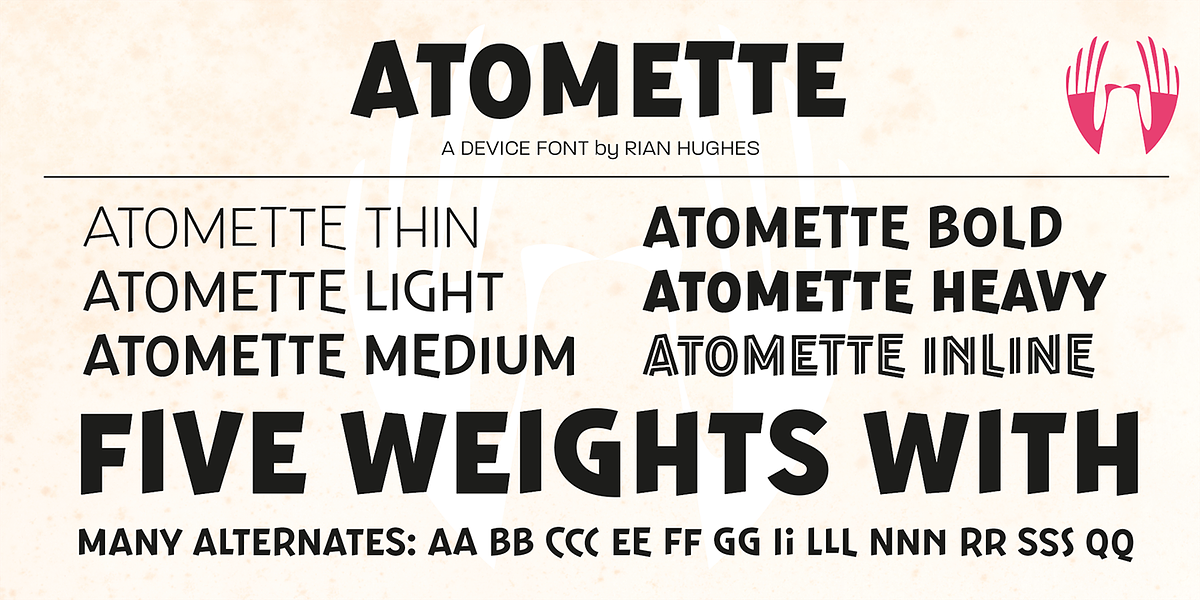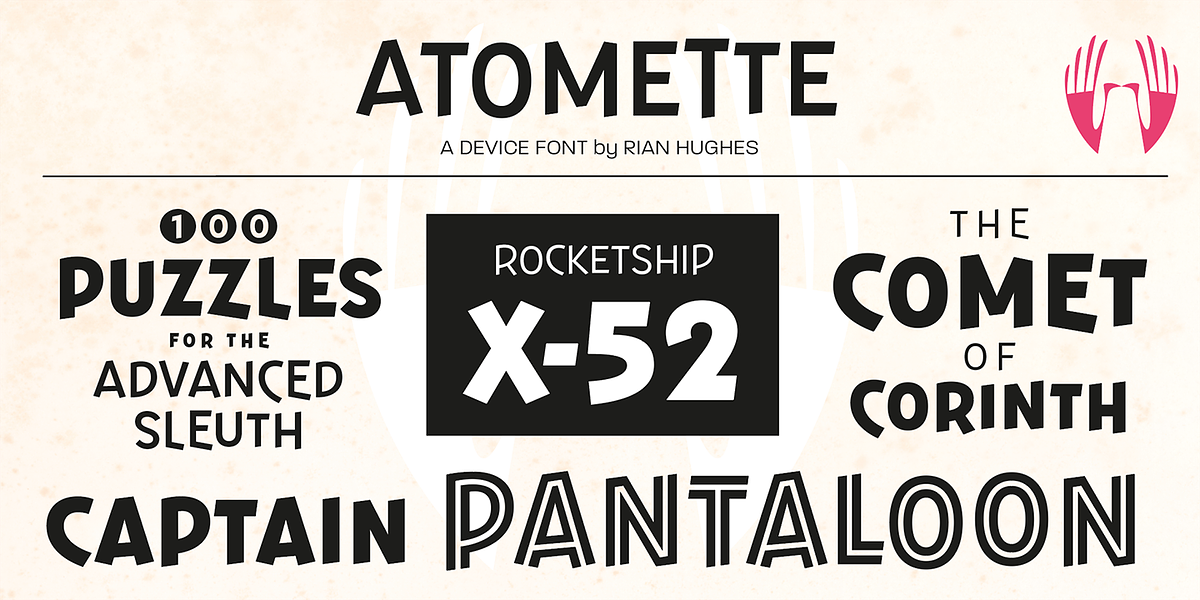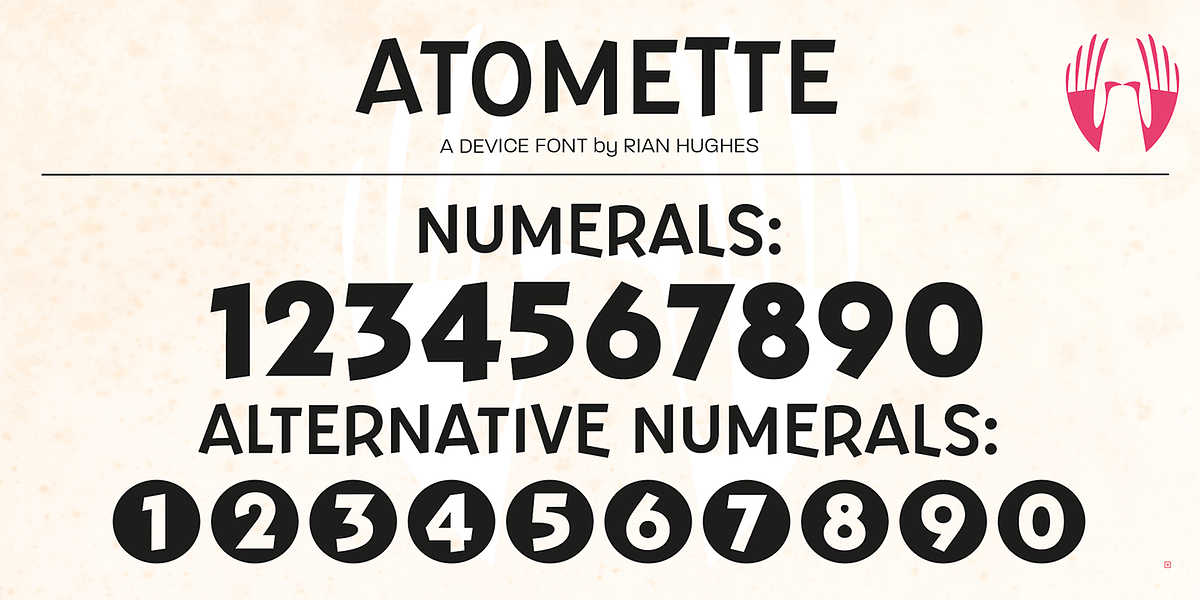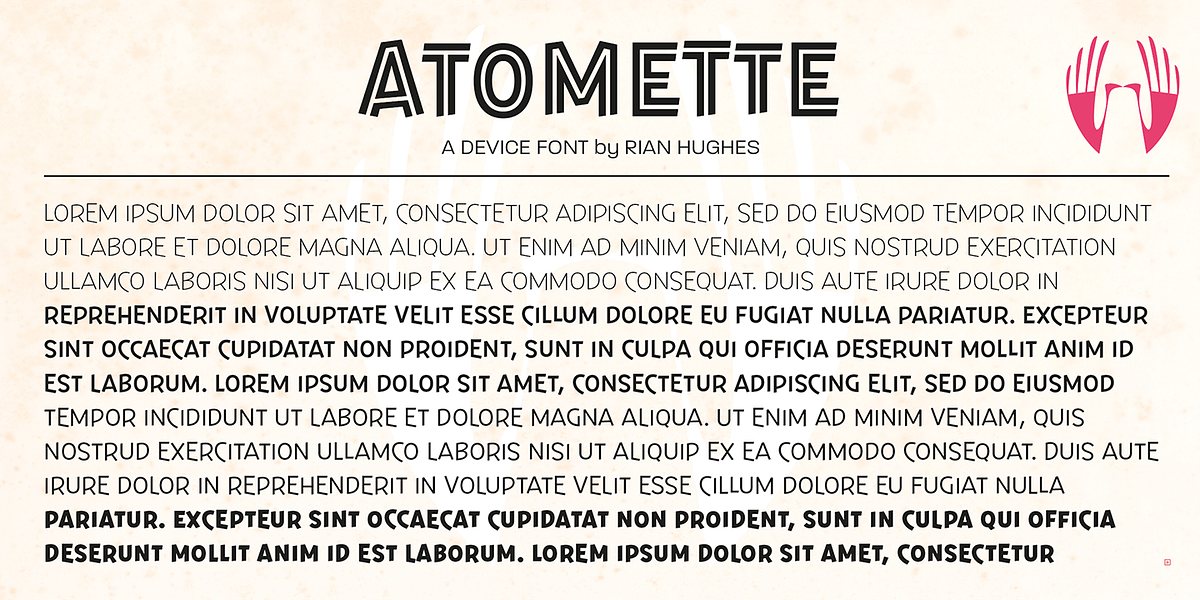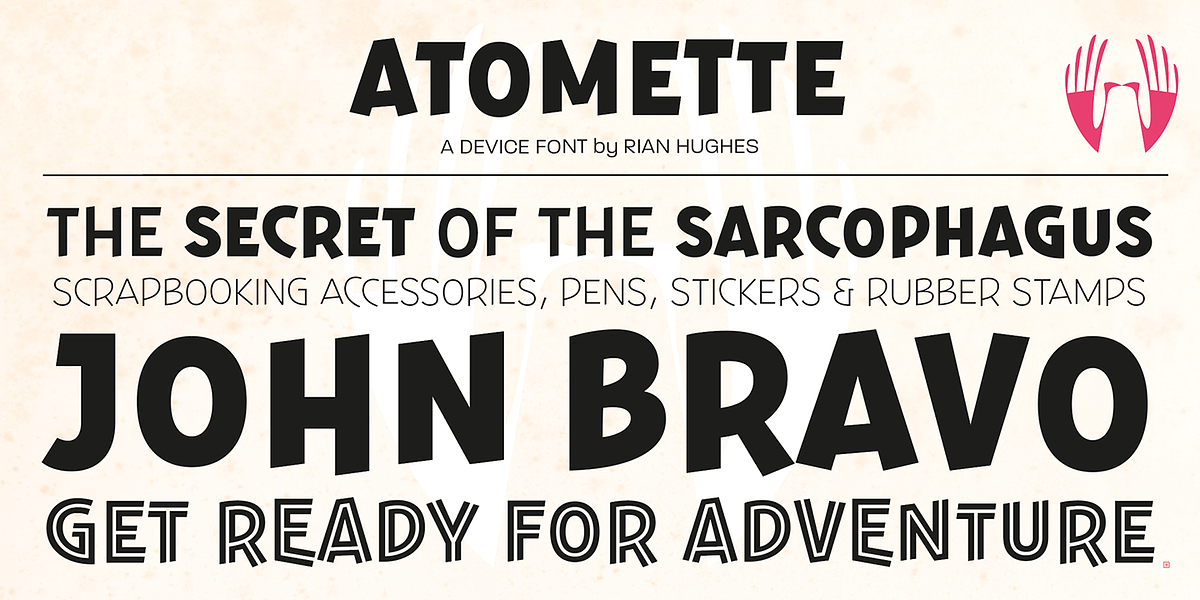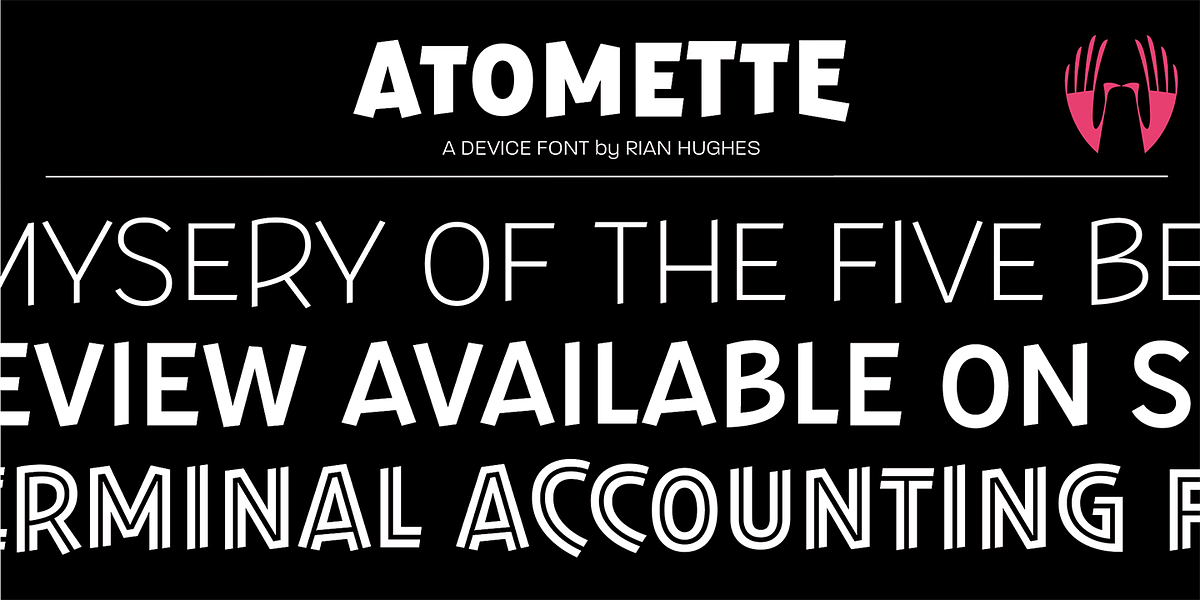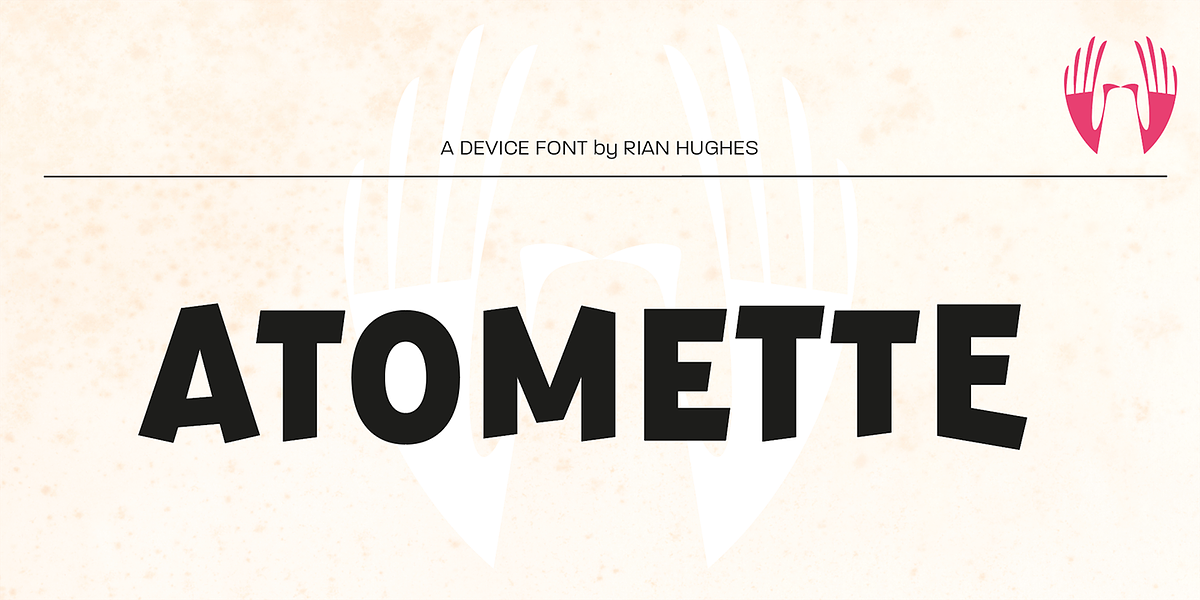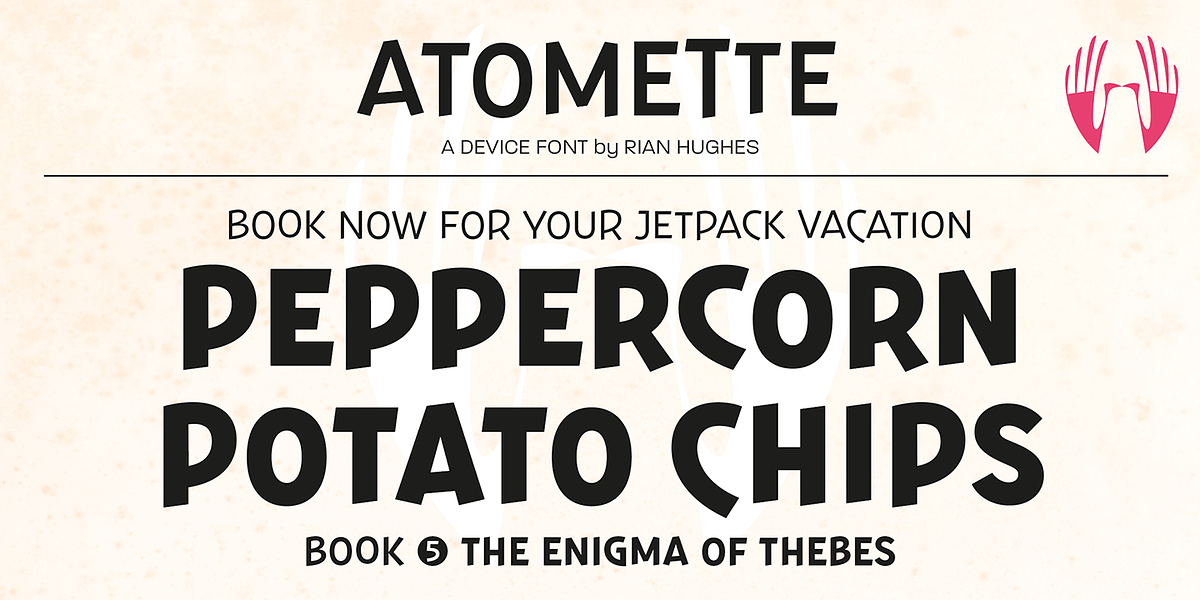
Atomette
Atomette is a playful and stylish sans-serif font designed for display purposes. Its bouncy letterforms convey a sense of friendliness and approachability. The font offers five weights, including an inline style, providing versatility for various design applications. Atomette includes alternate characters and letter pairs to prevent repetition, enhancing visual interest.